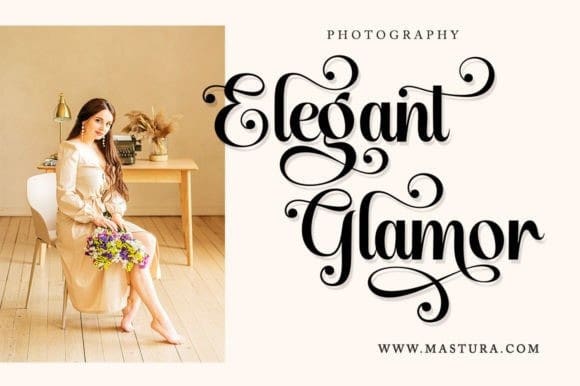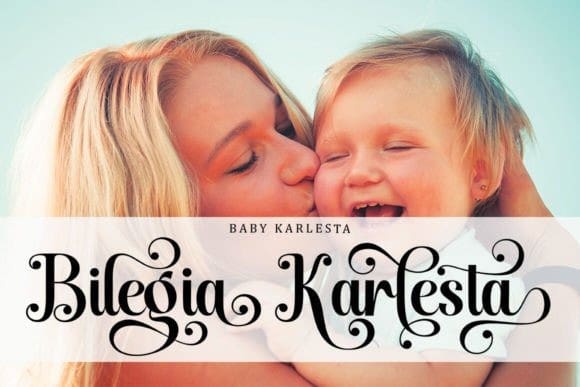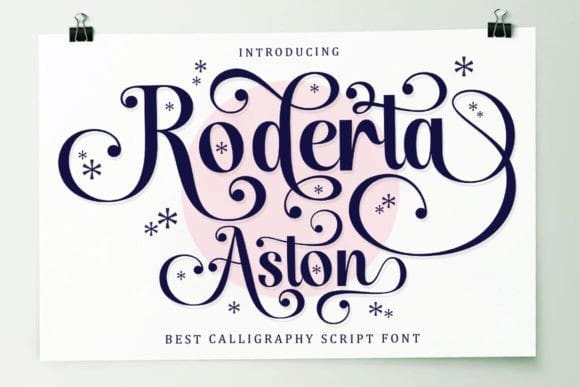
Roderta Aston Font
Roderta Aston Font, a calligraphy script font that exudes timeless elegance and sophistication. It’s the allure of RodertaAston that captivates the attention—a seamless blend of sleekness and femininity, infused with a touch of glamour. Adorned with a wealth of stylistic variations for some letters, this font offers creative flexibility.
Exuding the charm of the bygone era, Roderta Aston is perfect for a myriad of formal applications. From invitations, labels, and restaurant menus to logos, fashion, and make-up tags. Its classic appeal extends to stationery needs, books, magazines, novels, and greeting/wedding cards. Not to mention, it’s a standout choice for packaging, labels, and advertising essentials, making a statement in every use.